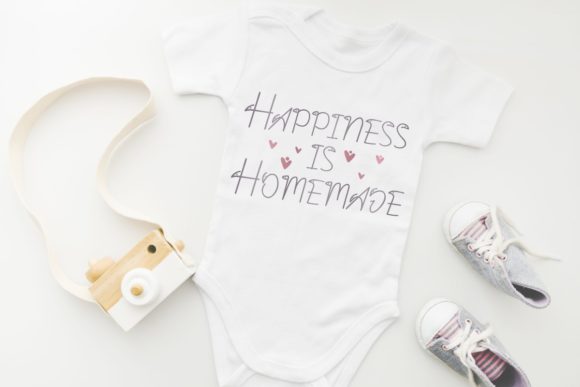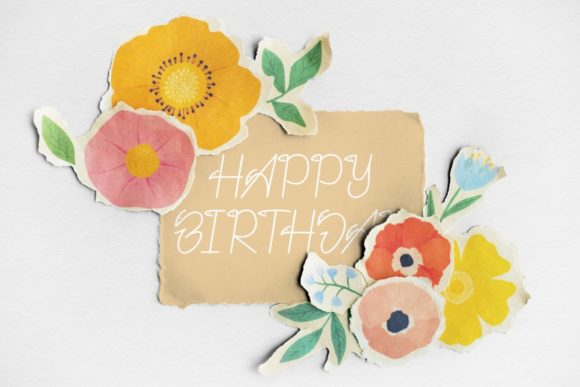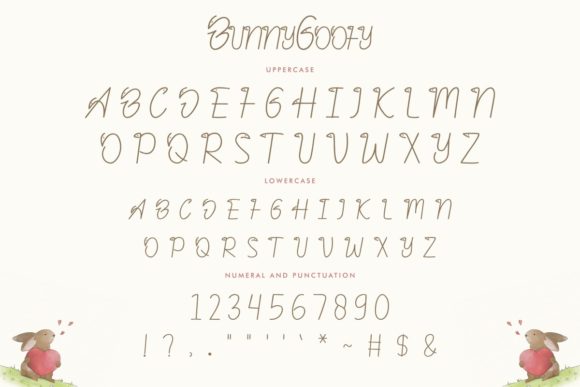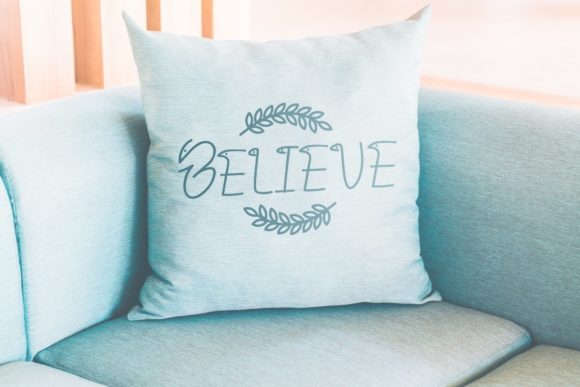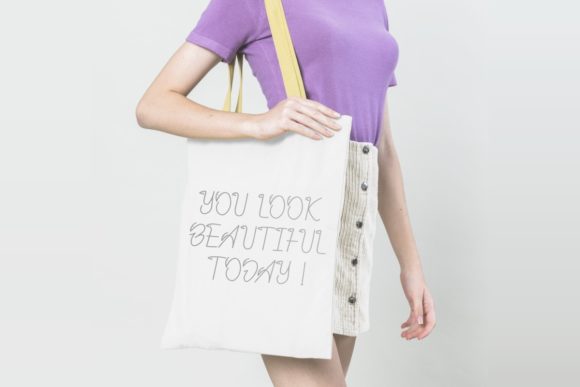
The Perfect Match for Whimsical Designs: Bunny Goofy Font
Have you ever been browsing through a fashion magazine, and a certain font catches your eye? Maybe it’s the smooth curves, the playful feel, or the overall charm that makes you want to swoon? That’s exactly what happens when you come across the Bunny Goofy Font. This delightful script font is designed to add a touch of whimsy to your projects, making it perfect for fashion branding or editorial designs.
What makes Bunny Goofy Font so valuable for designers is its unique ability to evoke a sense of playfulness and sophistication at the same time. Its curly lines and smooth curves make it an ideal choice for adding a personal touch to your designs. Whether you’re creating a fashion campaign, a blog post, or a social media graphic, Bunny Goofy Font is sure to add a touch of magic to your projects.
Bunny Goofy Font Key Features
- Font Family: Bunny Goofy Font is a sans-serif font family, specifically designed for digital use.
- Unique Characteristics: Bunny Goofy Font features a playful, energetic feel with exaggerated letterforms and rounded edges.
Bunny Goofy Font Review
I was excited to dive into the Bunny Goofy Font and see what it had to offer. Overall, I think this font is a fun addition to any project that needs a whimsical touch. ✨
- Unique Character Shapes: The font’s quirky character shapes add a playful feel to text, making it perfect for children’s books or advertising campaigns.
- Customization Options: The font offers a range of styles, from bold to cursive, allowing designers to choose the perfect look for their project.
- Easy to Read: Despite its playful nature, the font is surprisingly easy to read, even at smaller font sizes.
However, I do have a few concerns with the font’s limitations. ⚠️
- Limited Language Support: The font only supports a limited range of languages, which may be a problem for projects that require multilingual support.
- No Ligatures: The font doesn’t offer ligatures, which can make text look a bit disjointed at times.
Overall, I think the Bunny Goofy Font is a fun and creative option for designers looking to add a playful touch to their projects. While it has some limitations, its unique character shapes and customization options make it a great choice for the right project.
The Bunny Goofy Font is perfect for adding a playful touch to your designs. Use it for:
- Children’s party invitations
- Food and beverage labels
- Cartoon-style graphics
Remember to adjust the font size and style to ensure the text is legible and visually appealing.
Alternatives to Bunny Goofy Font
Pacifico is a beautiful, elegant script font ideal for creating a luxurious and sophisticated look. It’s perfect for designing invitations, wedding stationery, and other high-end materials. Pacifico has a more refined and polished feel compared to Bunny Goofy Font, which is more playful and whimsical.
Great Vibes is a fun and casual script font that’s great for creating a relaxed and friendly atmosphere. It’s perfect for designing social media graphics, blog posts, and other digital content. Great Vibes has a more laid-back feel compared to Bunny Goofy Font, which is more energetic and playful.
Dancing Script is a lively and dynamic script font that’s perfect for creating a sense of movement and energy. It’s great for designing event materials, such as posters and flyers, as well as digital content like social media graphics and videos. Dancing Script has a more fluid and dynamic feel compared to Bunny Goofy Font, which is more playful and quirky.
Lobster is a fun and quirky script font that’s perfect for creating a playful and whimsical atmosphere. It’s great for designing digital content, such as social media graphics and blog posts, as well as print materials like posters and flyers. Lobster has a similar feel to Bunny Goofy Font, but with a more laid-back and casual vibe.
Creative Project Ideas Using Bunny Goofy Font
Create a unique and playful invitation for a woodland-themed party or event. The Bunny Goofy Font adds a touch of whimsy and fun to the design.